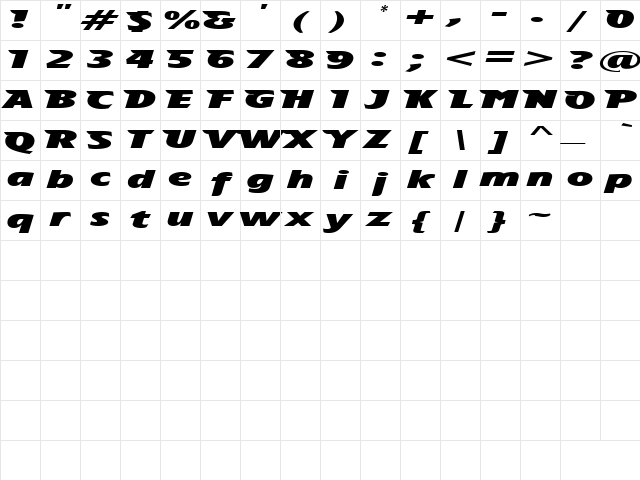
The Aeroplane Flies High Heavy Free Font
The Aeroplane Flies High Heavy
Design Context for The Aeroplane Flies High
The Aeroplane Flies High is a composed and adaptable typeface that performs quietly and consistently across a wide range of design contexts.